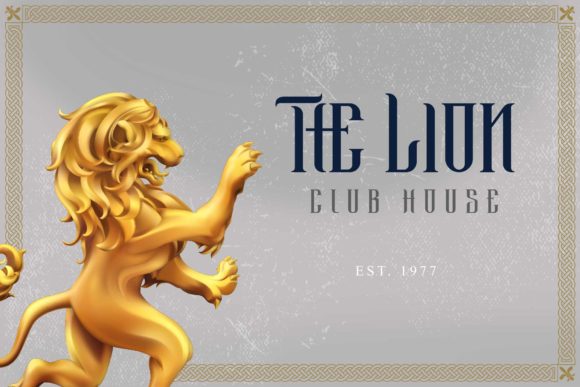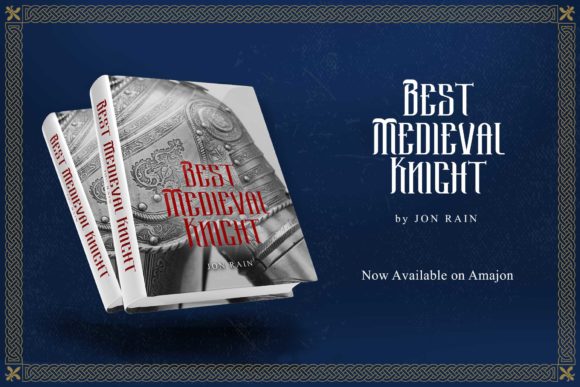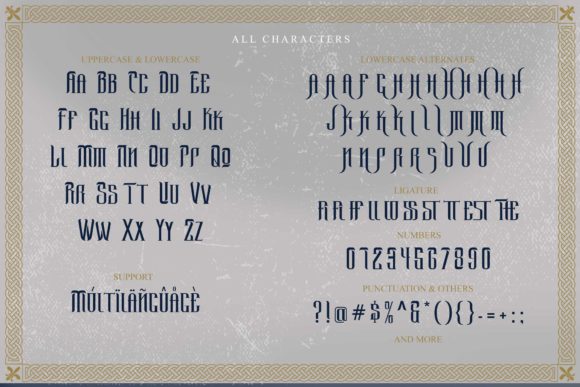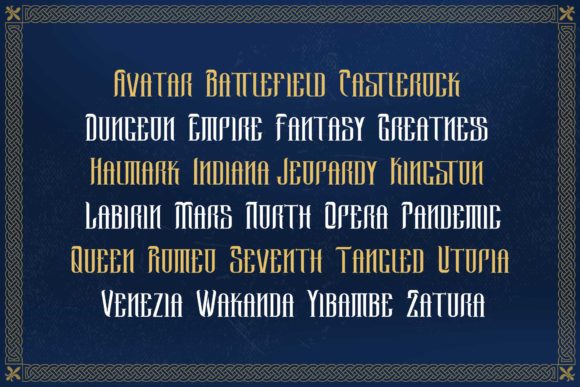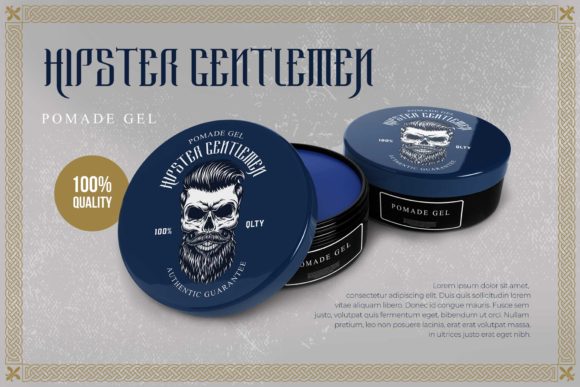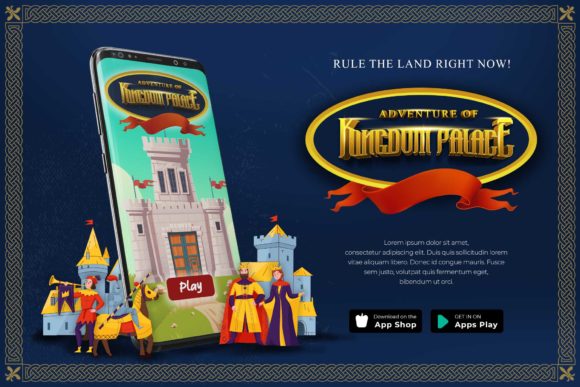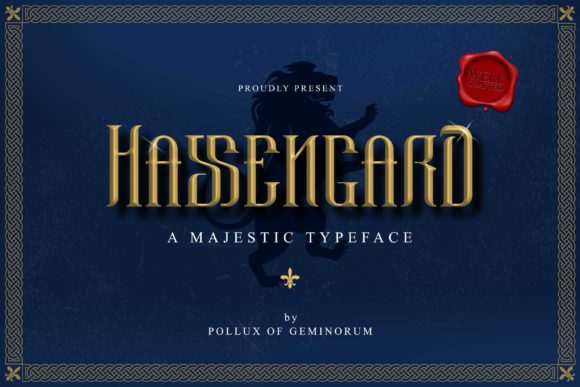
Hassengard Font: Elevate Your Designs with Elegance and Style
Are you a designer or crafter looking for a font that can add a touch of sophistication and elegance to your projects? Look no further than the Hassengard font. This stunning display font is perfect for a variety of design applications, from thank you cards and quotes to greeting cards, logos, and business cards.
A Stylish and Elegant Font for Your Designs
The Hassengard font is a beautifully crafted font that exudes style and elegance. Its intricate details and flowing lines make it perfect for designs that require a creative touch. Whether you’re working on a personal project or a client’s, this font is sure to impress. With its classic and sophisticated look, it’s ideal for a wide range of design applications, including:
- Thank you cards
- Quotes
- Greeting cards
- Logos
- Business cards
One of the best features of the Hassengard font is that it’s PUA (Private Use Area) encoded. This means that you can access all of the glyphs and swashes with ease, giving you even more creative freedom to customize your designs. With PUA encoding, you can:
- Easily access and use glyphs and swashes
- Create unique and personalized designs
- Save time and effort in your design process
Why Choose the Hassengard Font?
So why choose the Hassengard font for your designs? Here are just a few reasons:
- Elegance and style: The Hassengard font is a beautifully crafted font that adds a touch of sophistication and elegance to any design.
- Versatility: This font is perfect for a wide range of design applications, from stationery and cards to logos and business cards.
- Easy to use: With PUA encoding, you can easily access and use glyphs and swashes, making it simple to create unique and personalized designs.
- High-quality design: The Hassengard font is designed with high-quality and attention to detail, ensuring that your designs look professional and polished.
Tips for Using the Hassengard Font
Here are a few tips for using the Hassengard font in your designs:
- Experiment with different sizes and styles: The Hassengard font looks great in a variety of sizes and styles, so don’t be afraid to experiment and find the perfect look for your design.
- Pair it with other fonts: The Hassengard font pairs well with other fonts, so try combining it with a sans-serif font for a modern look or a script font for a more elegant feel.
- Use it for headlines and titles: The Hassengard font is perfect for headlines and titles, where its elegant and stylish design can really shine.
In conclusion, the Hassengard font is a stylish and elegant display font that’s perfect for designers and crafters looking to add a touch of sophistication to their projects. With its PUA encoding and high-quality design, it’s easy to use and versatile enough for a wide range of design applications. Whether you’re working on a personal project or a client’s, the Hassengard font is sure to impress.